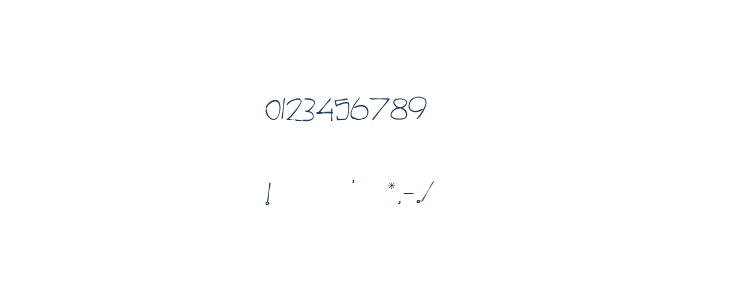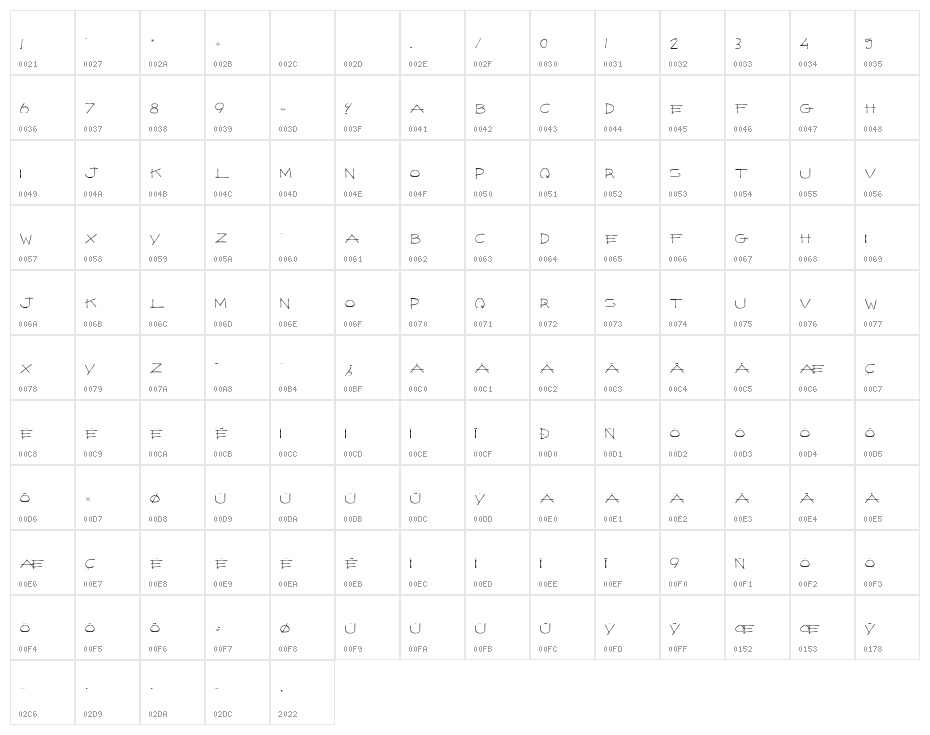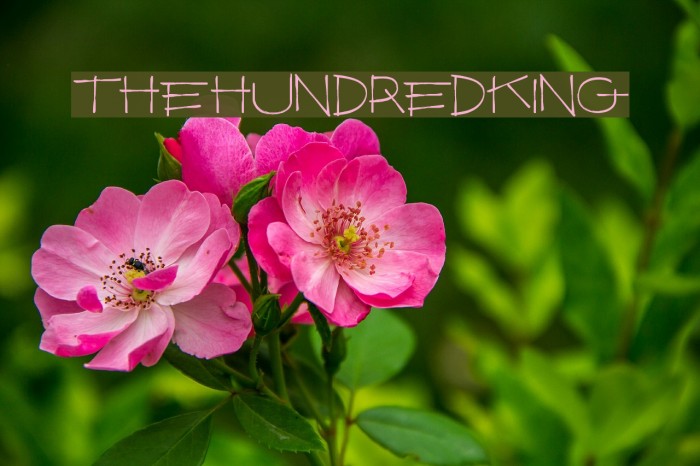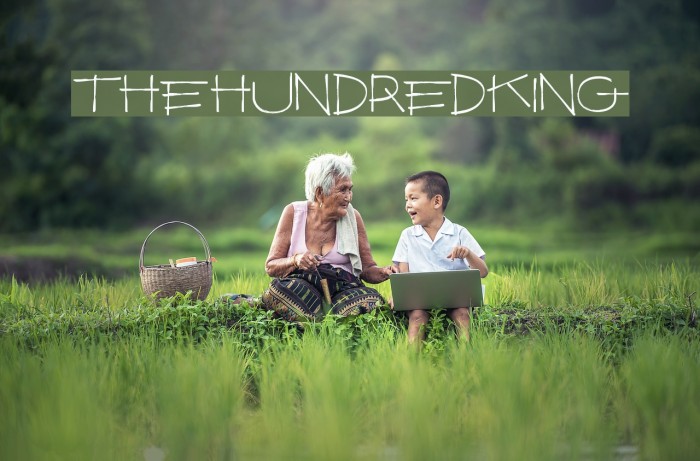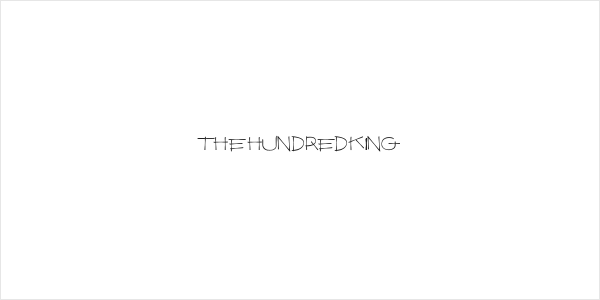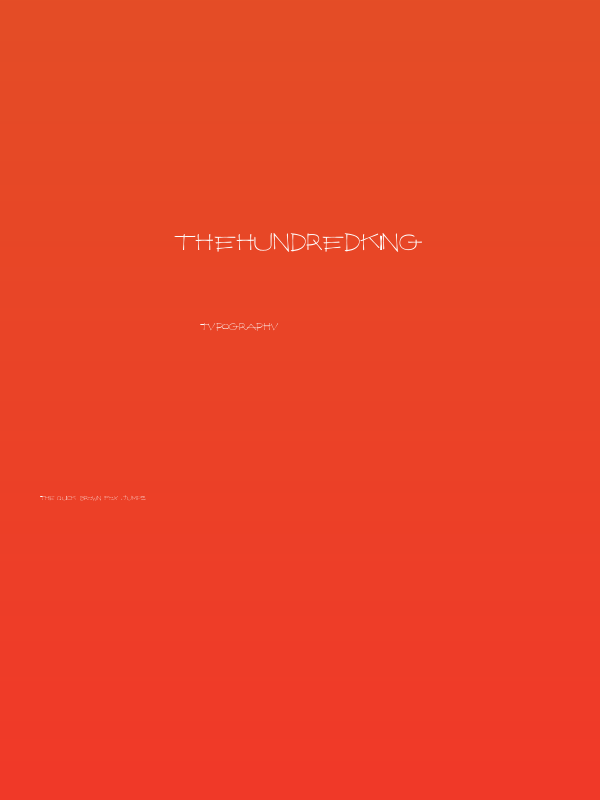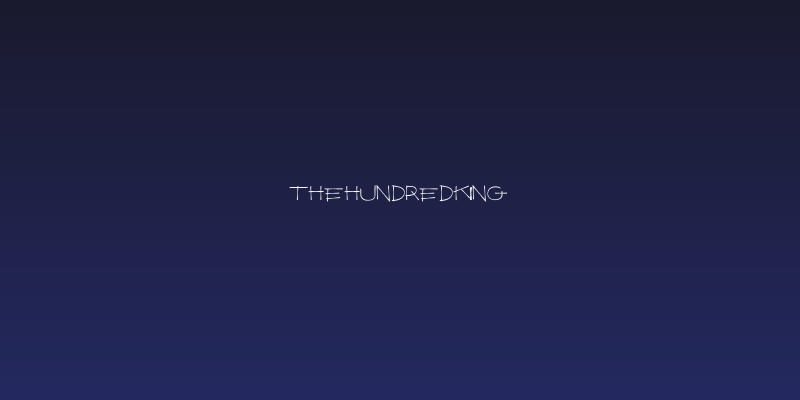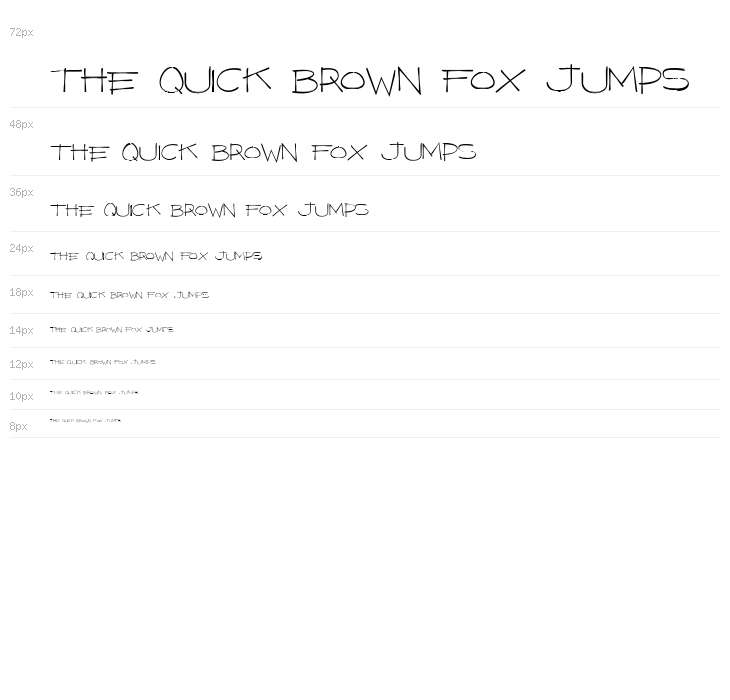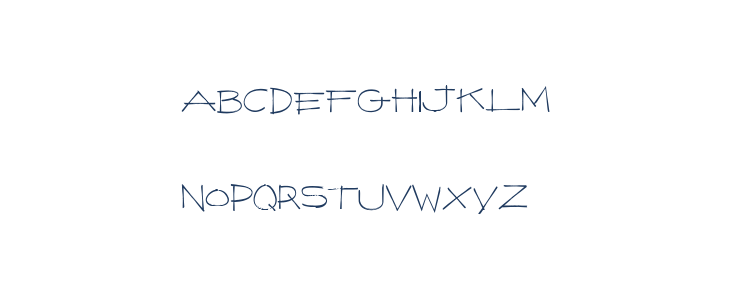
TheHundredKing Font
TheHundredKing Description
This font features a unique, hand-drawn style with irregular, playful strokes that give it a whimsical and artistic appearance. The characters are slightly uneven, adding to the charm and informal feel of the typeface. The uppercase and lowercase letters maintain a consistent style, with elongated lines and quirky angles that create a sense of movement and energy. The numerals and special characters follow the same design principles, ensuring a cohesive look across all text elements. This font is ideal for projects that require a personal touch or a creative flair, such as invitations, greeting cards, or artistic branding.